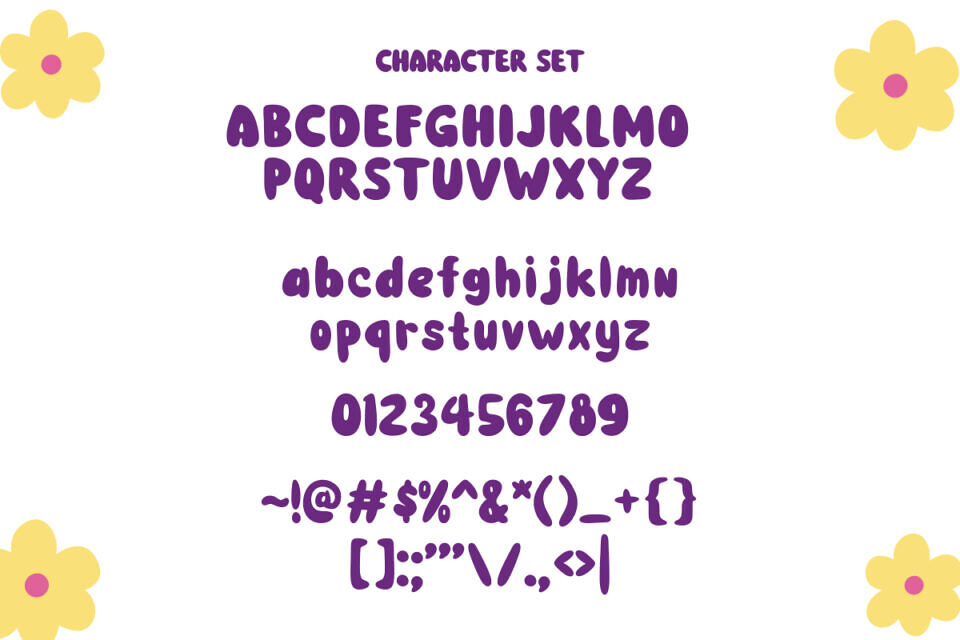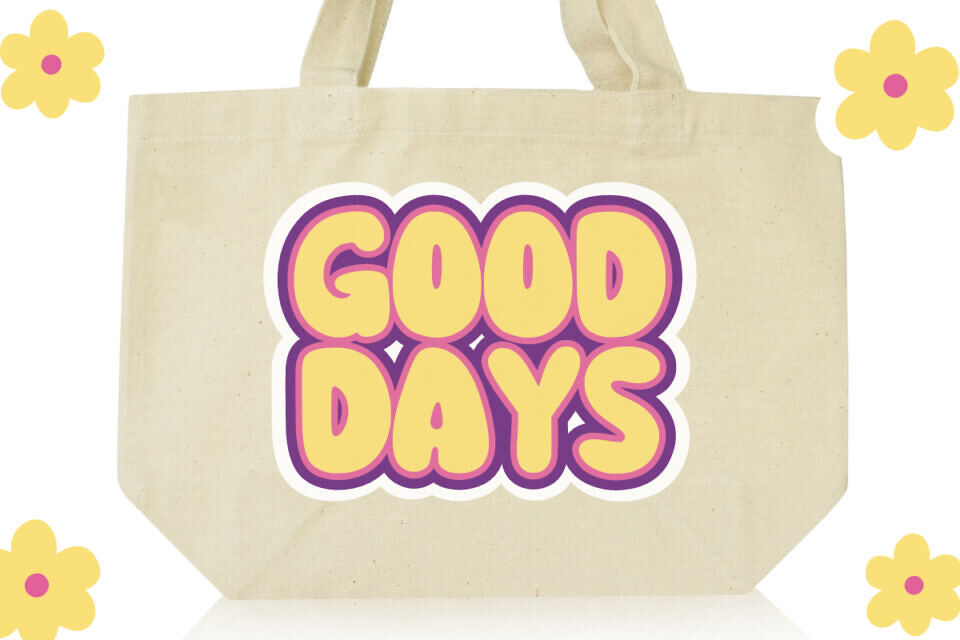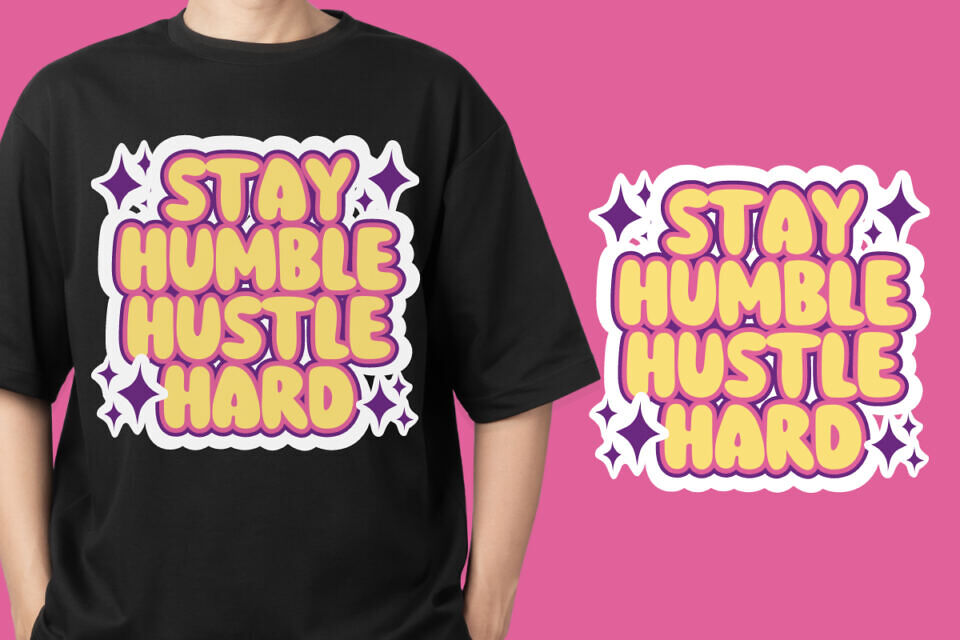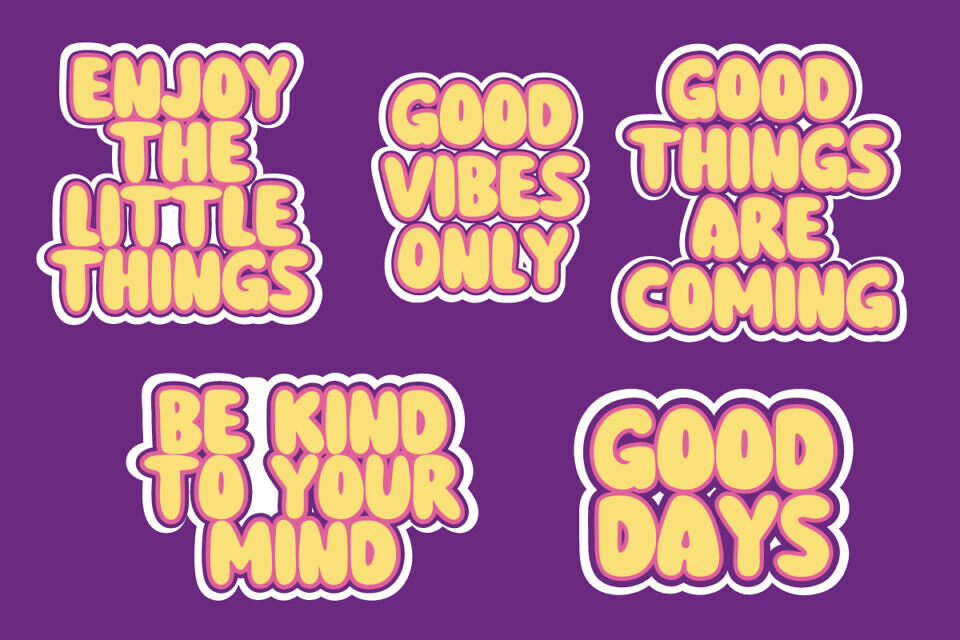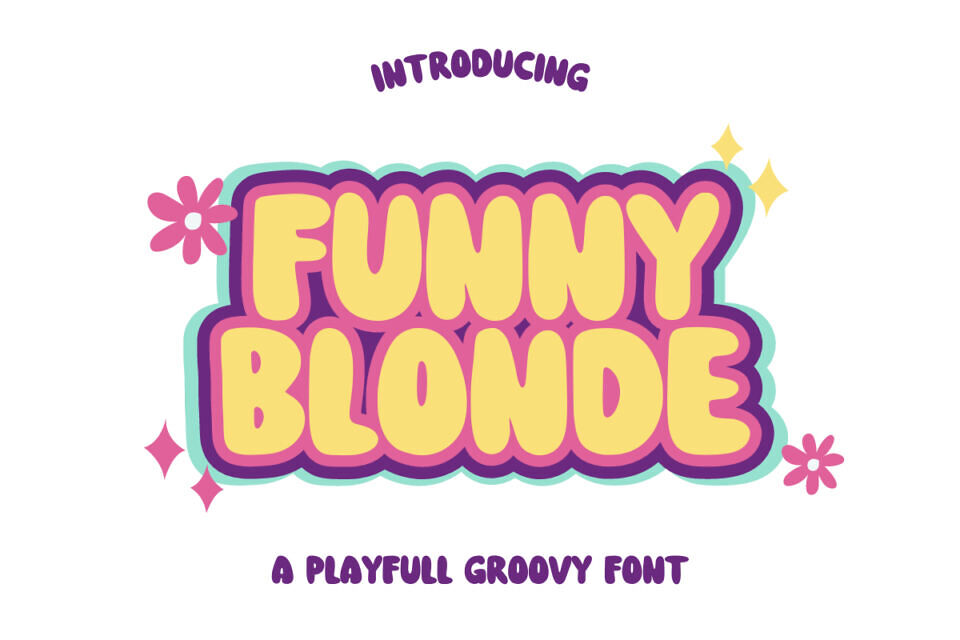
Funny Blonde Font
Funny Blonde is a playfull groovy font, it’s perfect for designs that need a playfull, cheery accent. Funny Blonde is suitable for book covers, posters, packaging, merchandise, logotypes, tshirt, totebag, tumblr and many more!